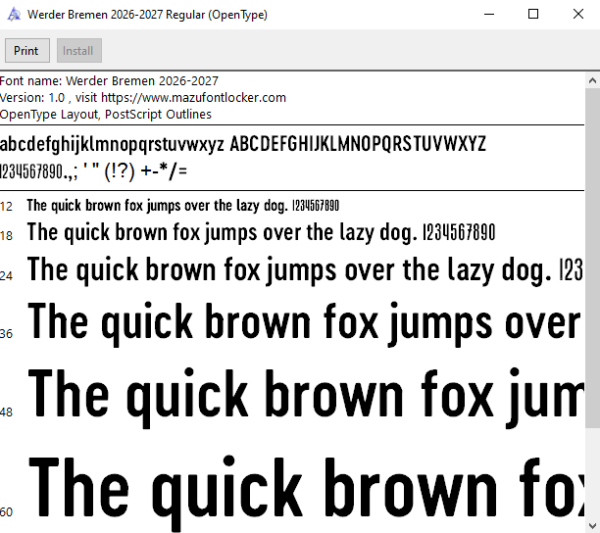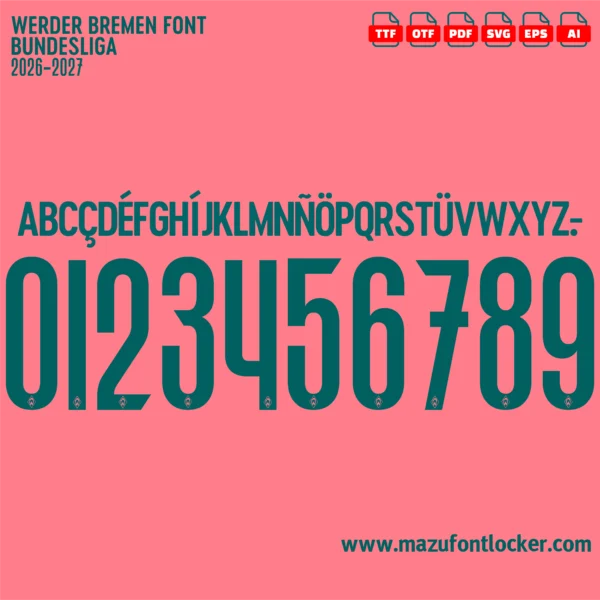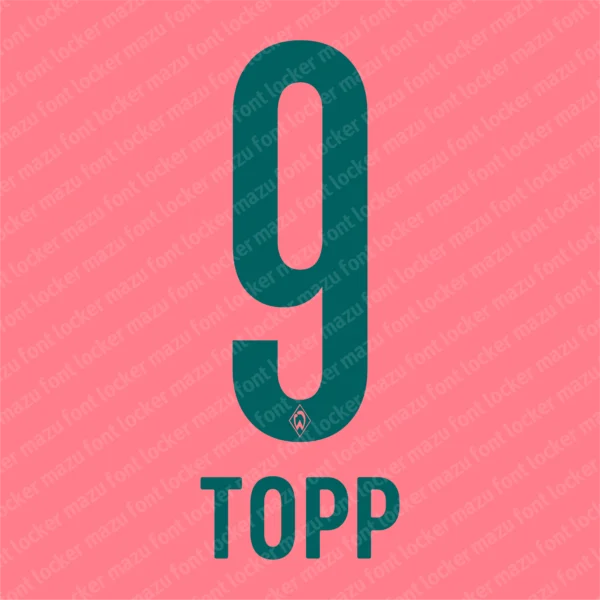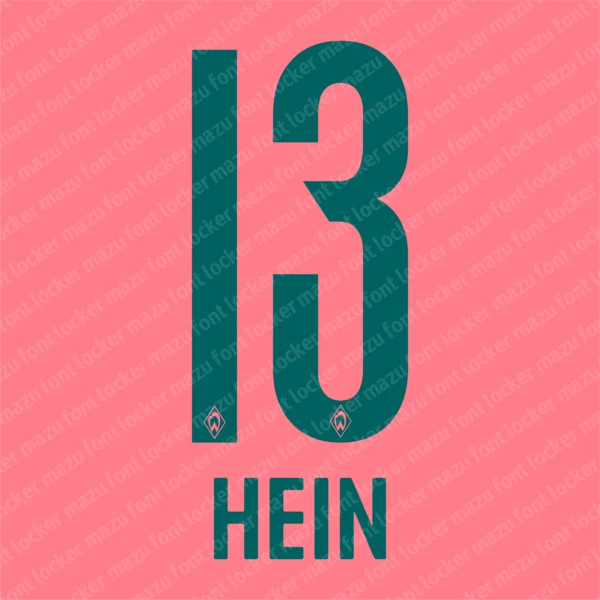
Werder Bremen Third 2026-2027 Font Vector – Stunning Green-White Legacy Typeface
This premium font faithfully recreates the sleek, distinctive, and performance-inspired typography that embodies Die Grün-Weißen—delivering the spirit of German football, unwavering determination, tactical excellence, attacking ambition, and the rich green-and-white heritage that has established Werder Bremen as one of Germany’s most iconic, respected, and historic football clubs.
Werder Bremen Third 2026-2027 Font Vector – Stunning Coral Legacy Typeface
The Werder Bremen Third 2026-2027 Font Vector is a premium typeface that faithfully recreates the official match lettering featured on SV Werder Bremen’s striking 2026-2027 Third Kit. Designed with exceptional precision, this high-quality vector font captures the authentic typography worn on one of the club’s boldest and most eye-catching jerseys to date.
Perfect for professional designers, football enthusiasts, jersey customizers, and Werder Bremen supporters, the Werder Bremen Third 2026-2027 Font Vector delivers authentic results for football shirt mockups, sports branding, fan merchandise, social media graphics, and collector-inspired projects. Every character has been carefully recreated to match the official player names and squad numbers used throughout the 2026-2027 season.
Why Choose Werder Bremen Third 2026-2027 Font Vector
This font accurately reproduces the official shirt lettering used on Werder Bremen’s 2026-2027 Third Kit. Every letter and number has been meticulously vectorized to provide realistic jersey customization and professional-quality football artwork. Whether you’re designing modern kit concepts or commemorative football graphics, the Werder Bremen Third 2026-2027 Font Vector delivers exceptional authenticity.
The lettering features a bold, clean, and contemporary athletic design that perfectly complements Werder Bremen’s vibrant coral-red third kit with petrol-green accents. The balanced geometry and crisp edges ensure excellent readability while preserving the official match appearance.
The numerals faithfully replicate the official squad numbers worn during the 2026-2027 campaign. Every number has been professionally vectorized for flawless scaling across jersey printing, posters, banners, and digital media.
• Complete uppercase A–Z and numbers 0–9 in authentic Werder Bremen Third 2026-2027 style
• Extended multilingual Latin character support with diacritics
• Includes accurate crest glyph positioning for realistic football shirt customization
Werder Bremen Third Kit 2026-2027
The Werder Bremen Third Kit for the 2026-2027 season introduced one of the club’s most distinctive designs in recent years. Featuring a vibrant coral-red base with tonal geometric patterns and contrasting petrol-green details, the jersey celebrates the unique culture and character of Bremen under the campaign slogan “Naturally Bremen.” Manufactured by hummel, the kit quickly became a standout among football shirt collectors thanks to its bold color palette and premium finish.
The official match lettering complements the modern aesthetic, making this font ideal for authentic football projects, collector recreations, and professional sports design work. :contentReference[oaicite:0]{index=0}
The Werder Bremen Third 2026-2027 Font Vector is an independently designed typeface package created to replicate the official shirt lettering style featured on Werder Bremen’s 2026-2027 Third Kit. It is perfect for football-inspired artwork, jersey customization, historical recreations, sports branding, and fan projects.